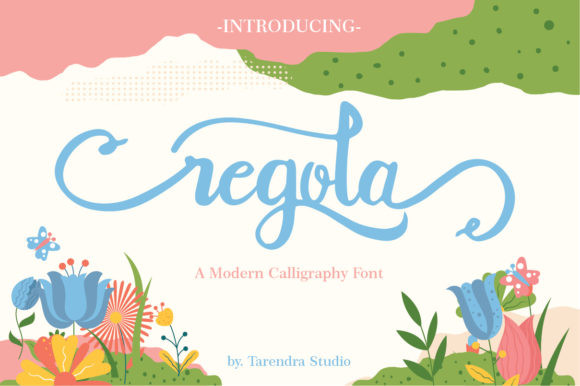
Regola Font
Regola is a sweet, soft hand-lettered handwritten font. It’s perfect for invitations, stationery, wedding designs, social media posts, advertising, product packaging, quotes and much more!